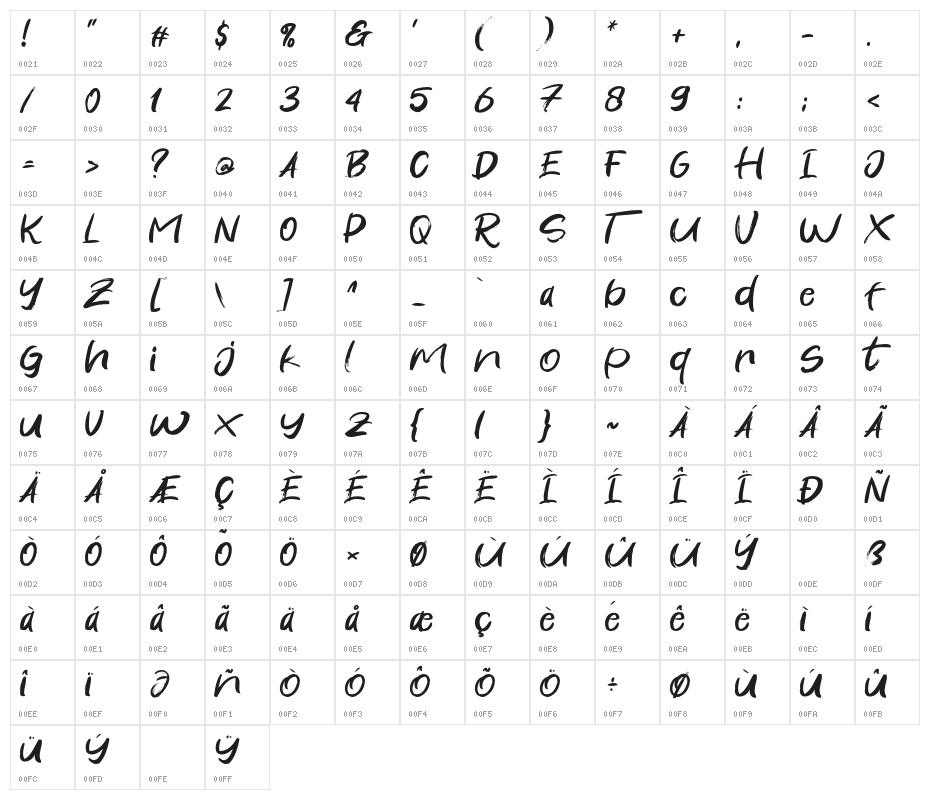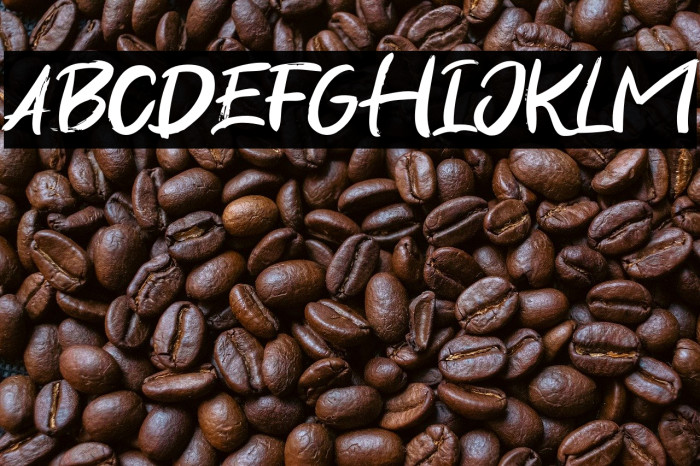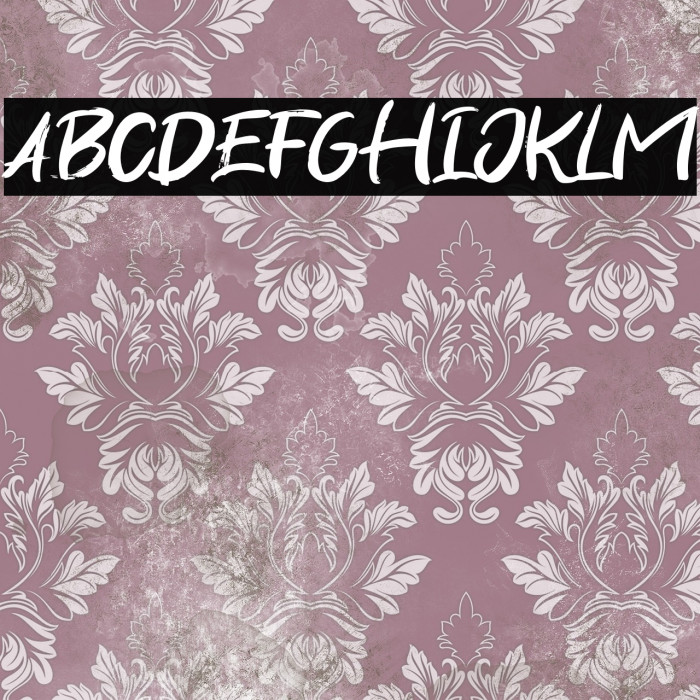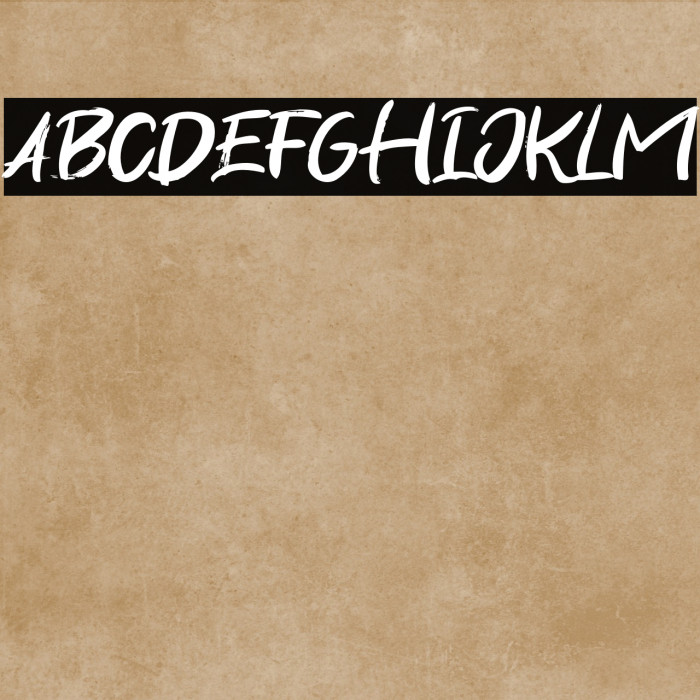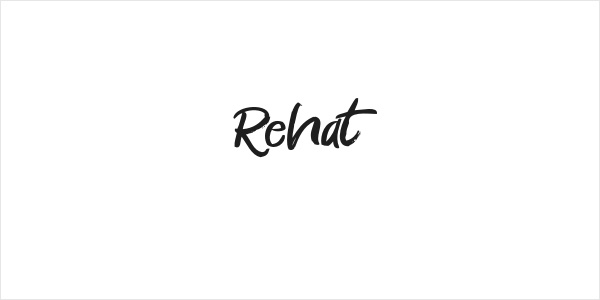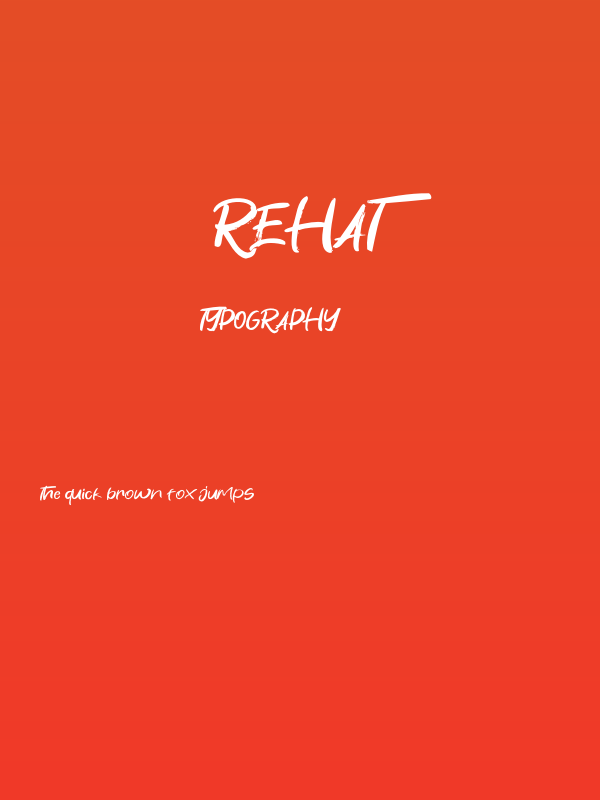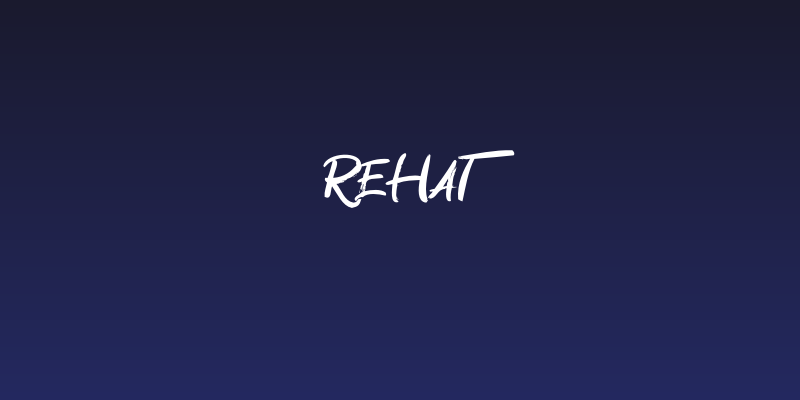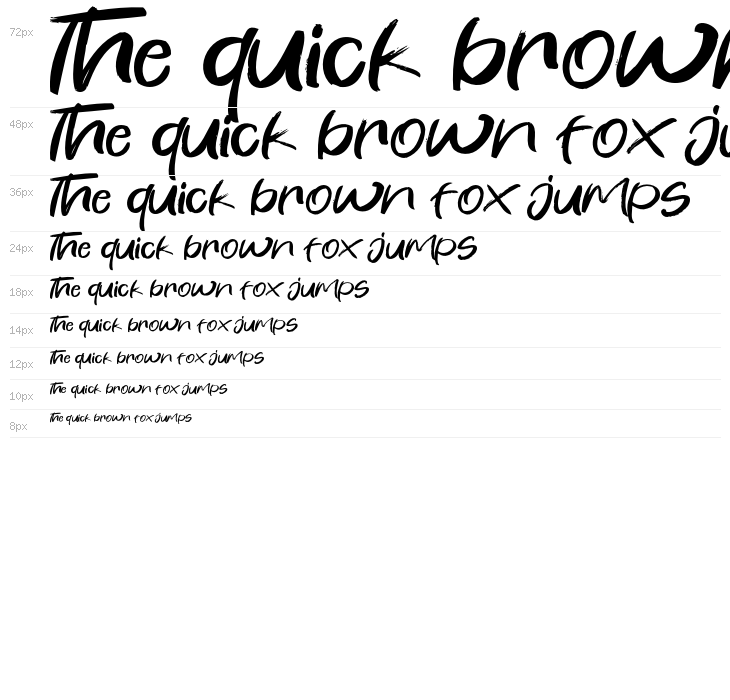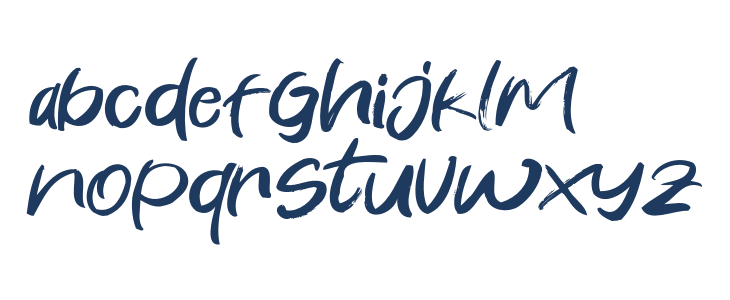
Rehat Font
Rehat Description
This font exhibits a dynamic and expressive brush script style, characterized by its bold and fluid strokes. The letters are crafted with a sense of movement and energy, giving it a hand-painted appearance. The uppercase letters are slightly larger and more pronounced, while the lowercase letters maintain a consistent flow. The numbers and special characters follow the same energetic style, ensuring a cohesive look across all glyphs. The font's organic and artistic nature makes it suitable for projects that require a personal touch or a creative flair.
| Proposed Projects | Ideal for branding, packaging, posters, and invitations where a personal or artistic touch is desired. |